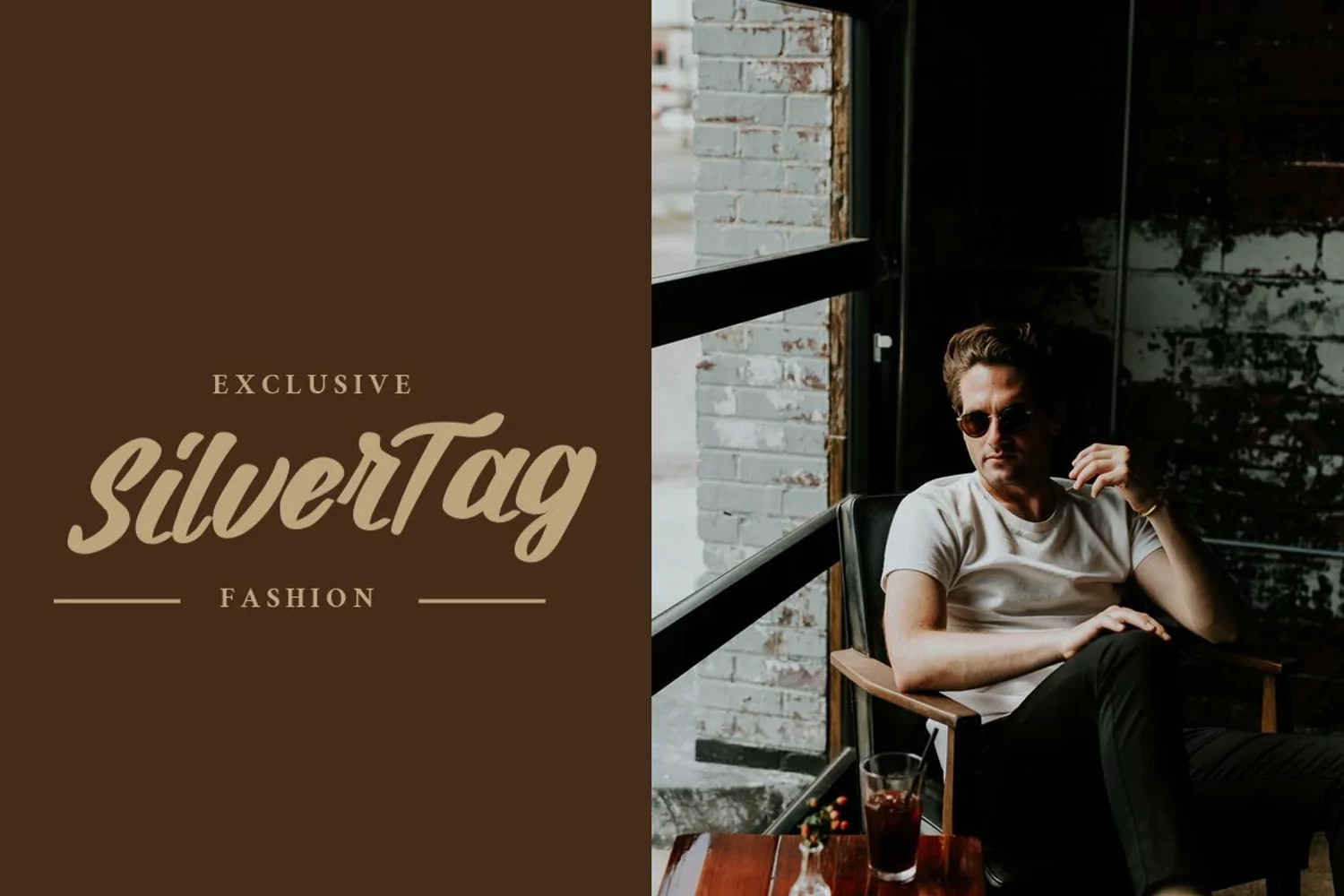
Hotline is a bold and flowing handwritten font. This font is the perfect fit for all of your logos, branding, social media, and crafty DIY projects.
This Font is perfect for branding projects, logo, wedding designs, social media posts, advertisements, product packaging, tshirt design, product designs, label, photography, watermark, invitation, stationery and any projects.